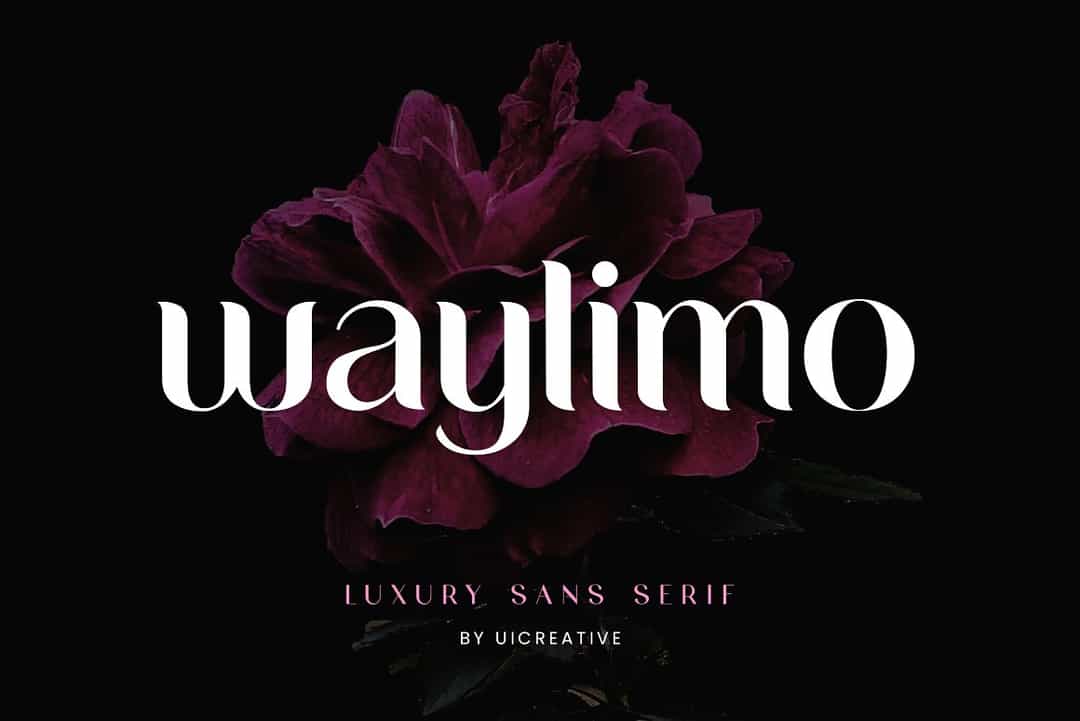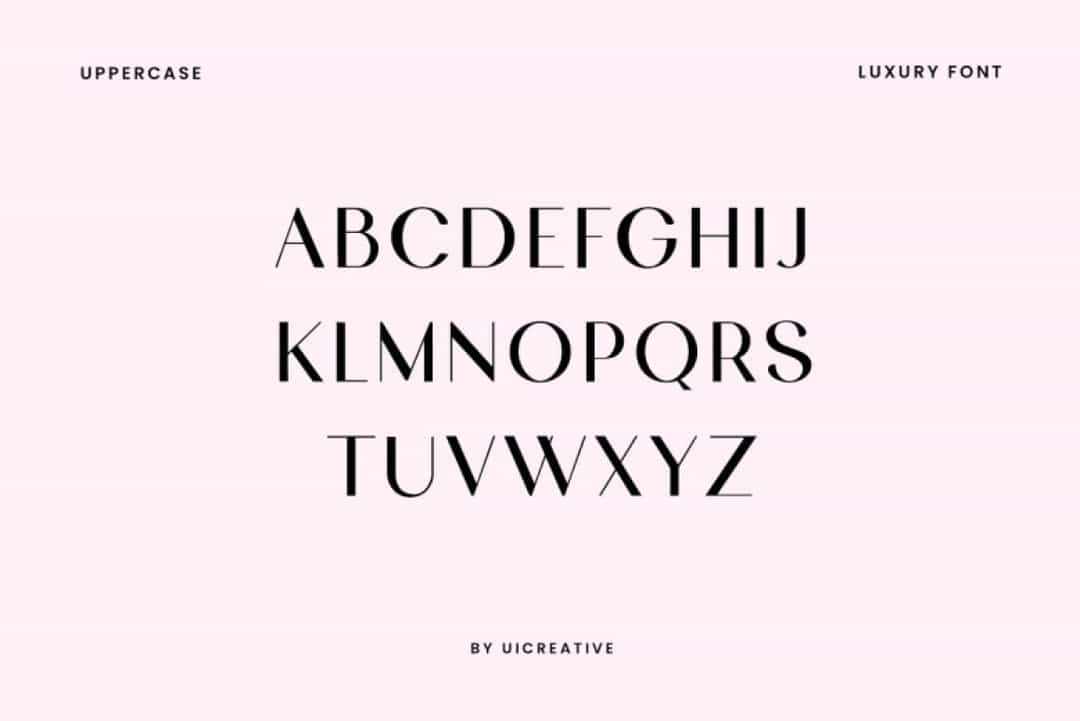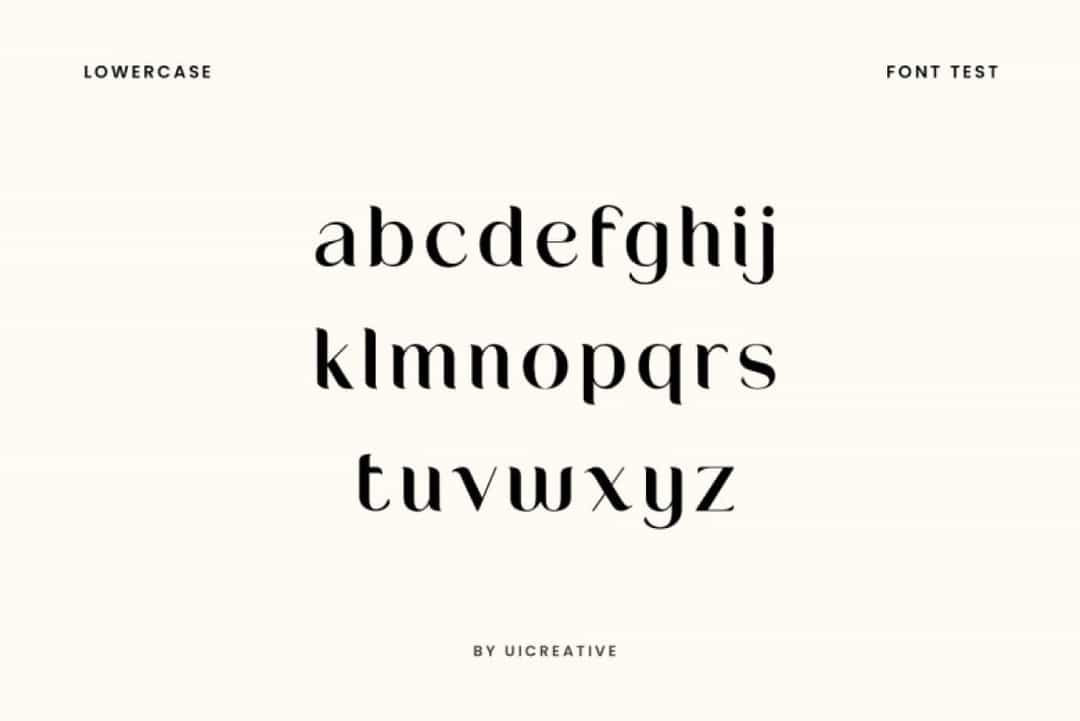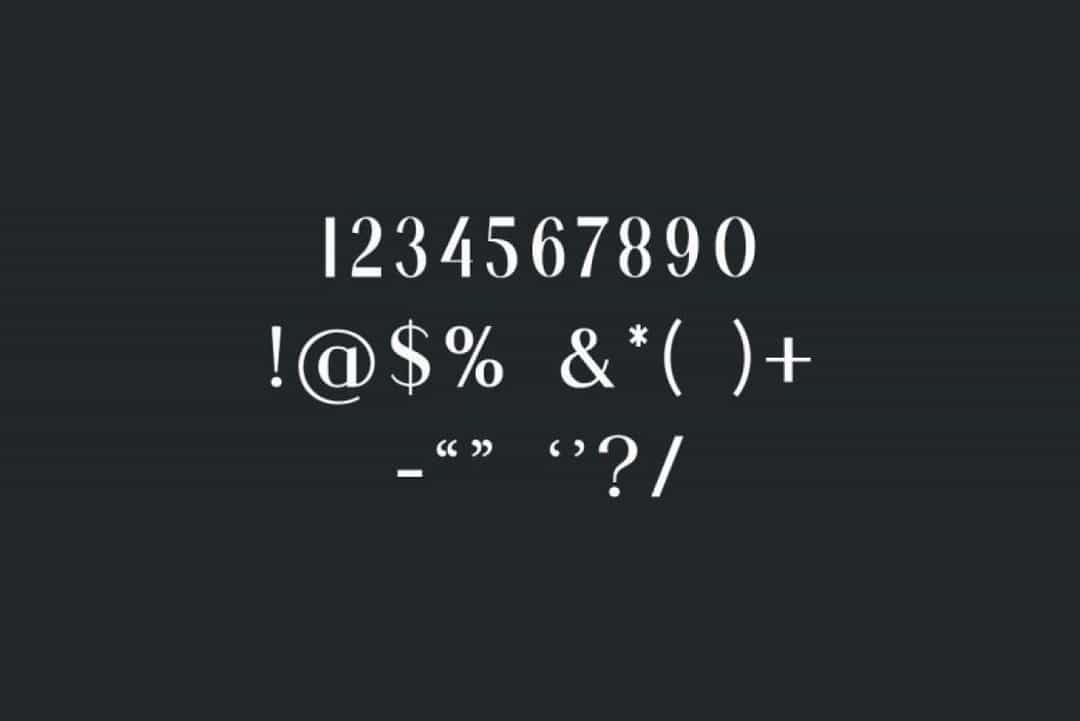
Waylimo Font is our brand new luxurious Sans serif font that is elegant, beautiful and contemporary – ideal for a range of designs such as logos, signatures, stationery wedding invitations, typography quote posters or book or magazine covers, website headers or clothing and packaging designs – that demonstrate both feminine and masculine qualities.